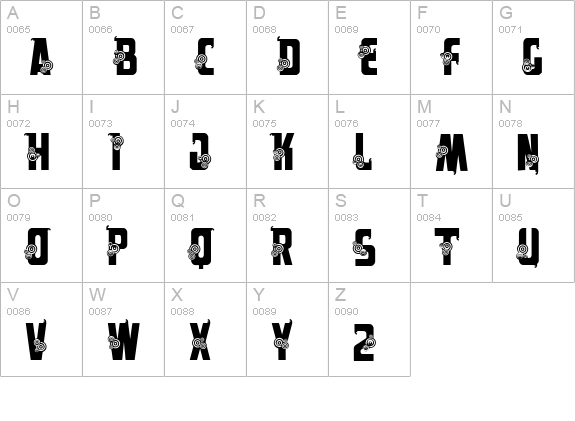
VTKS alpes Font Details
VTKS Alpes is a unique and eye-catching font that exudes a sense of creativity and modernity. With its bold and distinctive letterforms, this font is sure to make any design stand out. Whether used for headlines, posters, or branding materials, VTKS Alpes adds a touch of sophistication and flair. The best part about VTKS Alpes is that it is completely free to download. You can easily access this stylish font at FontsMarket.com, where you can unleash your creativity and incorporate VTKS Alpes into your projects without any cost. Don't miss out on this fantastic opportunity to elevate your designs with this captivating and versatile font. Download VTKS Alpes today and take your creations to the next level!